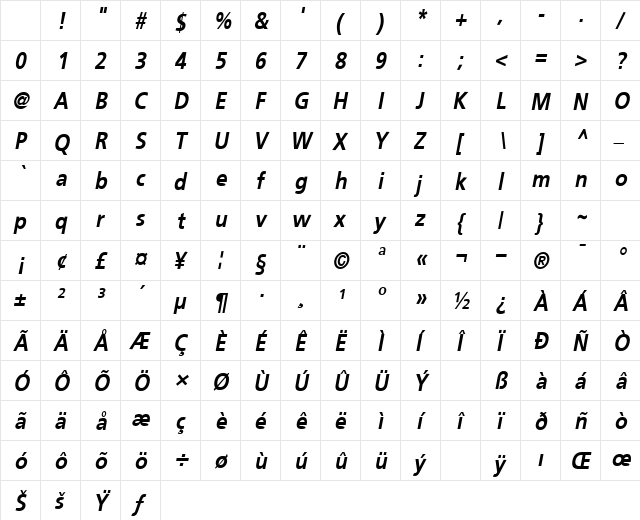
Complete Virtual Bold-Oblique glyph index. Displaying only characters natively supported by Virtual Bold-Oblique font.
Virtual is a composed and adaptable typeface that performs quietly and consistently across a wide range of design contexts. The slanted form adds forward momentum and visual energy. Its bold stroke weight gives it real presence on the page.